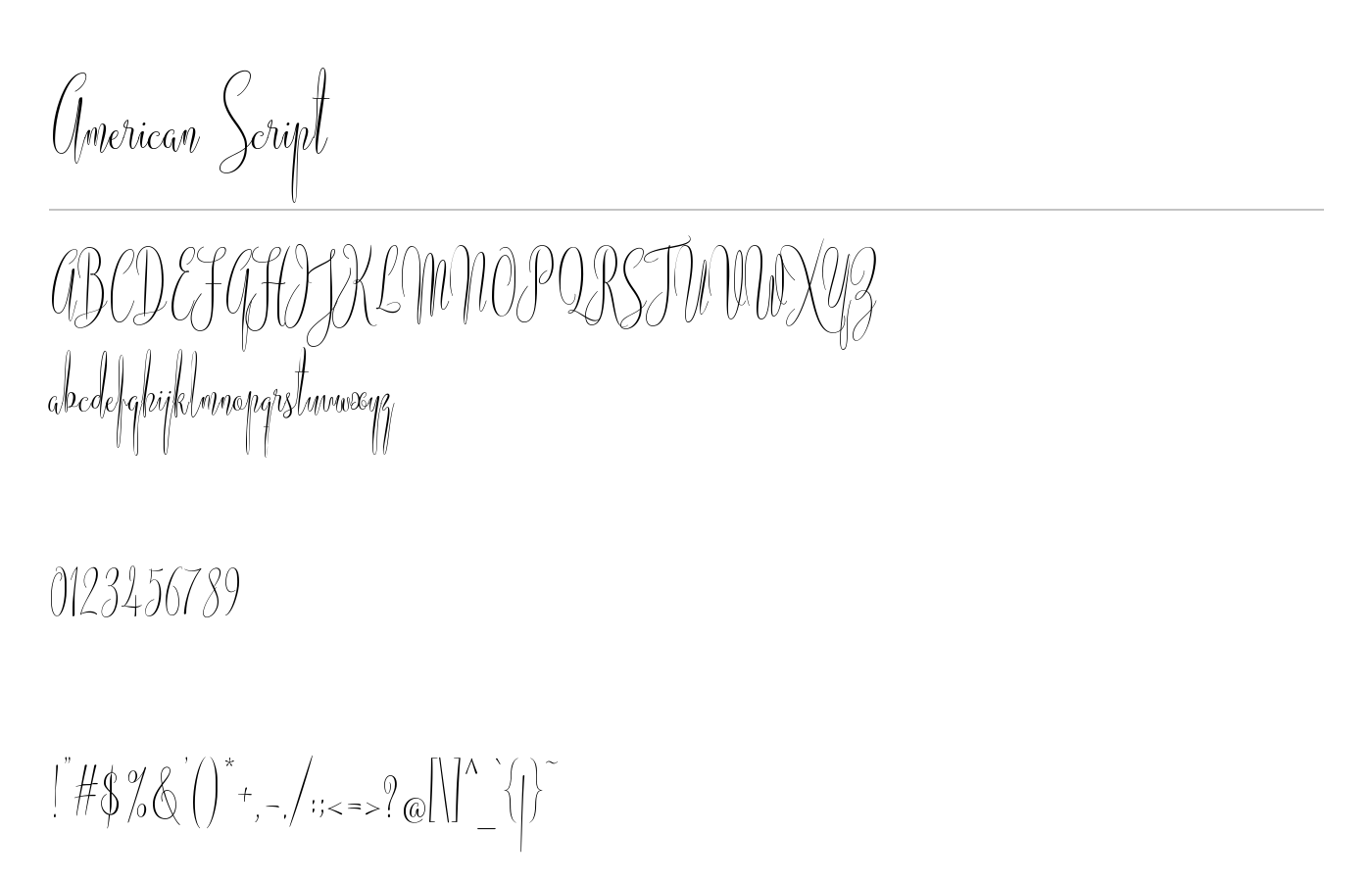
American Script is a delicate and elegant script font characterized by its thin, elongated strokes and graceful curves, giving it a refined and sophisticated appearance. With its tall x-height and flowing connections, it works beautifully for upscale branding, invitations, and headings where a stylish, handwritten feel is desired. This font shines in designs that need a touch of elegance and personality without overwhelming the layout.
American Script Font
About American Script Font
| Font family | American Script Font |
| Designer | Darwinoo |